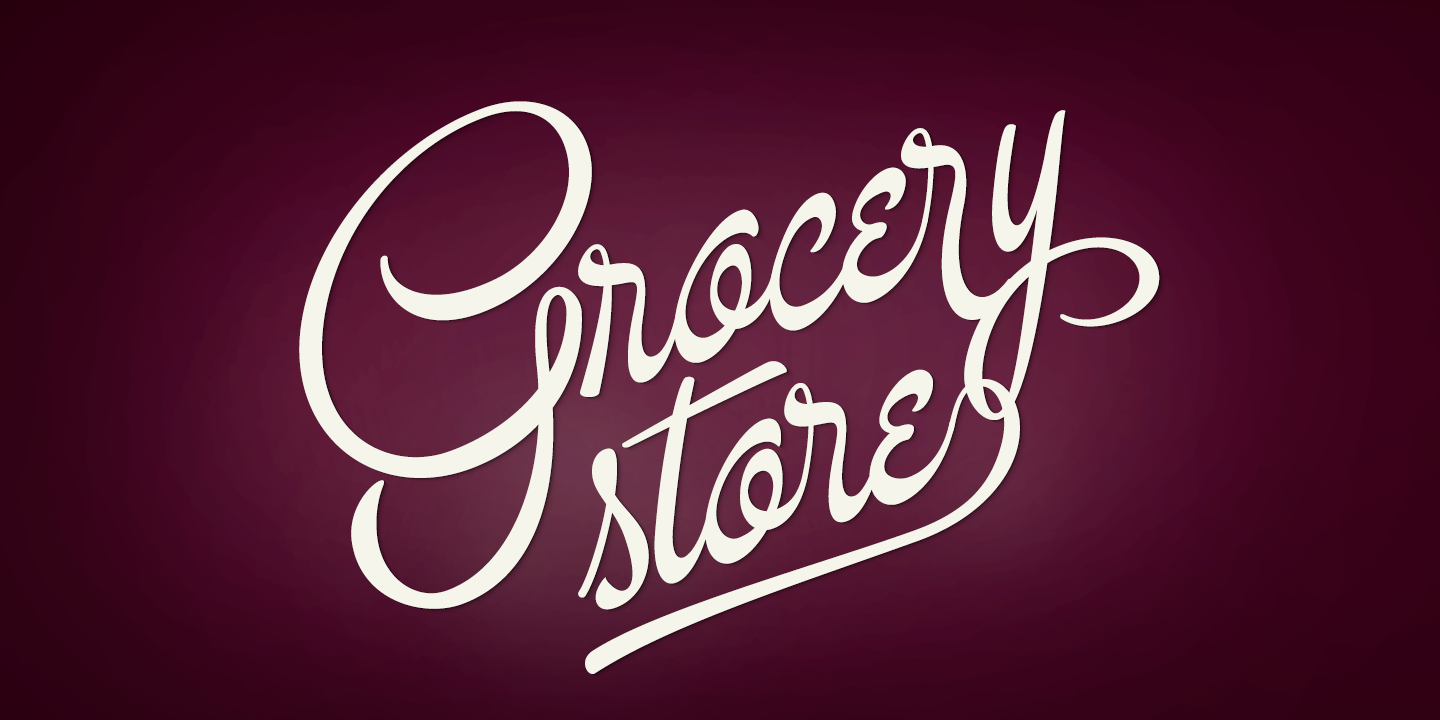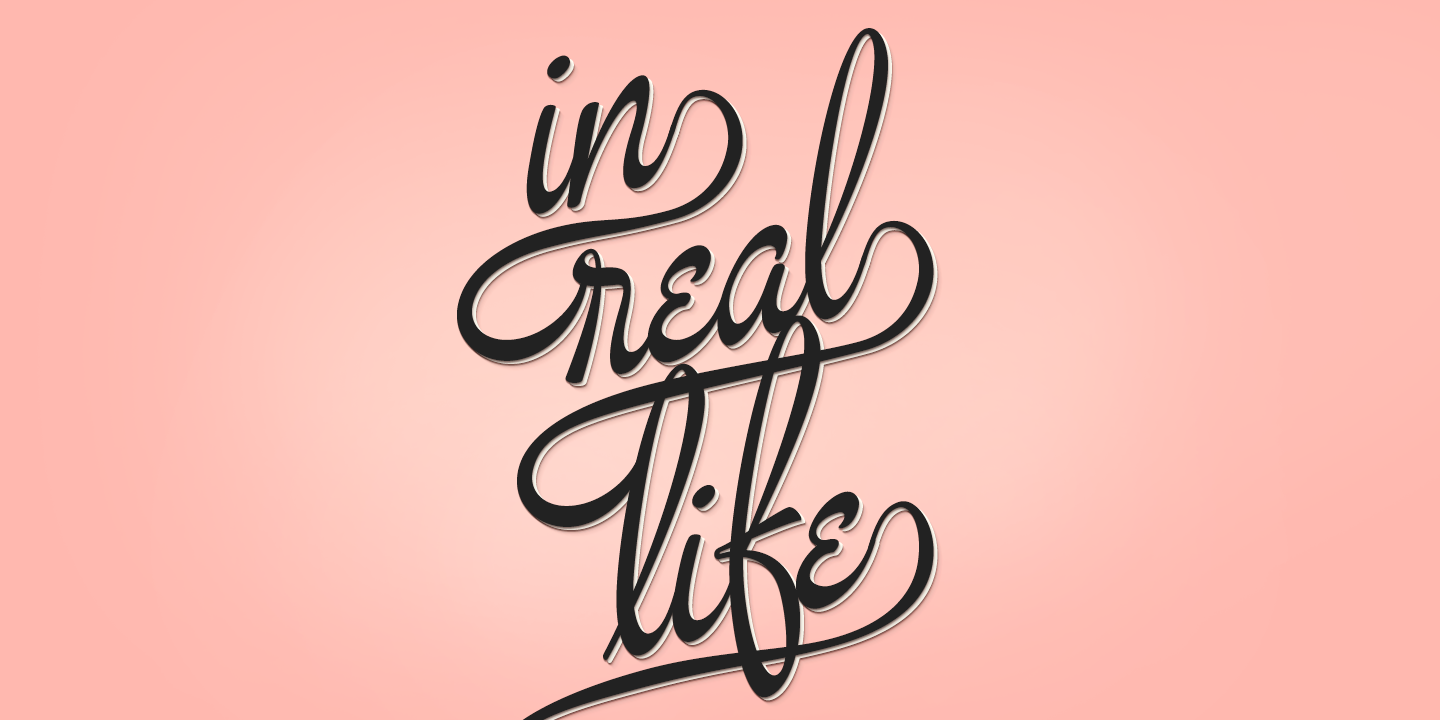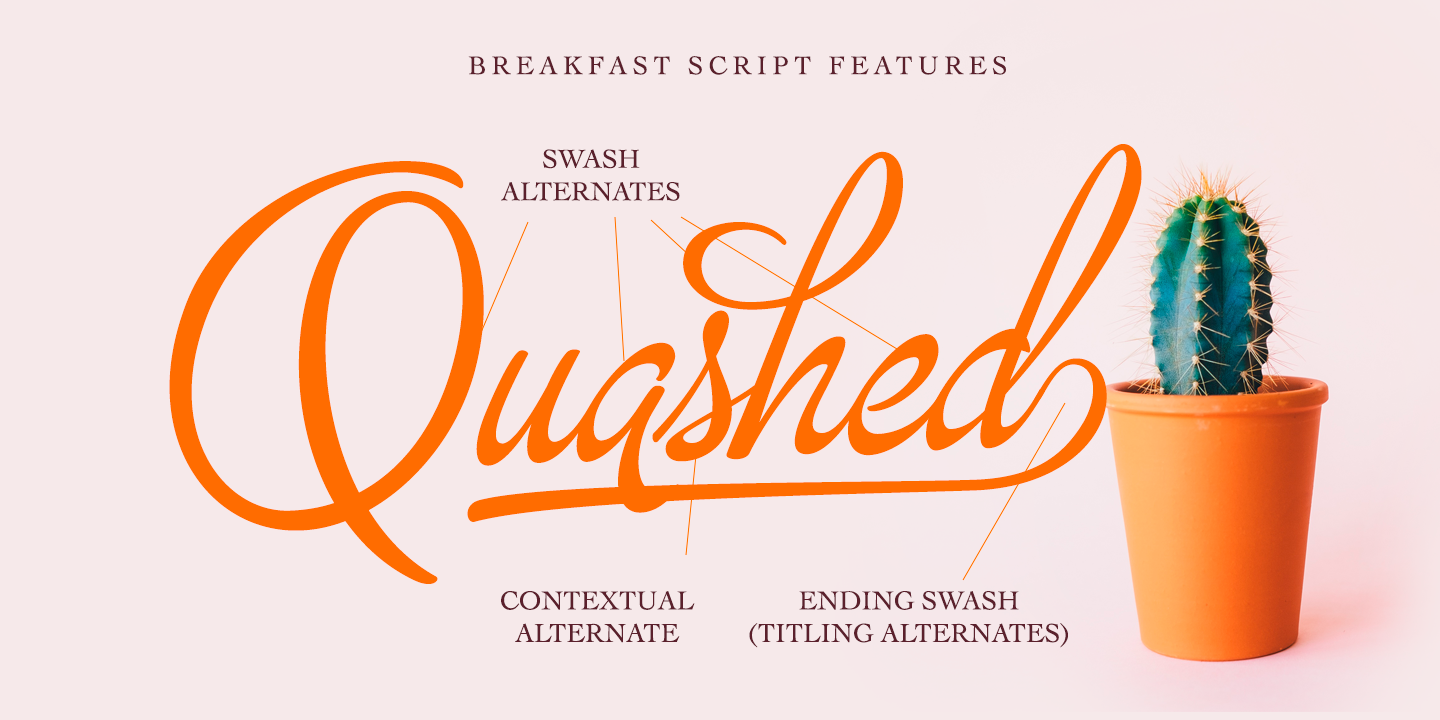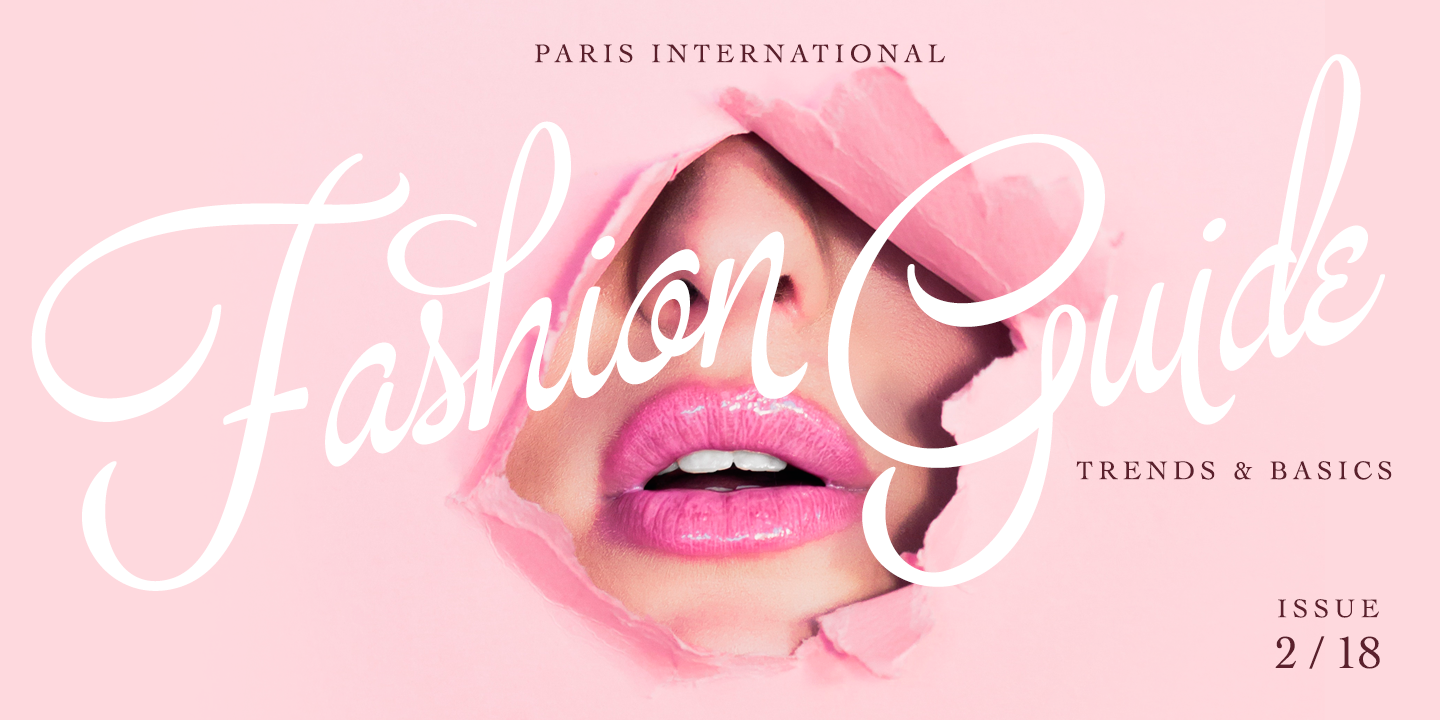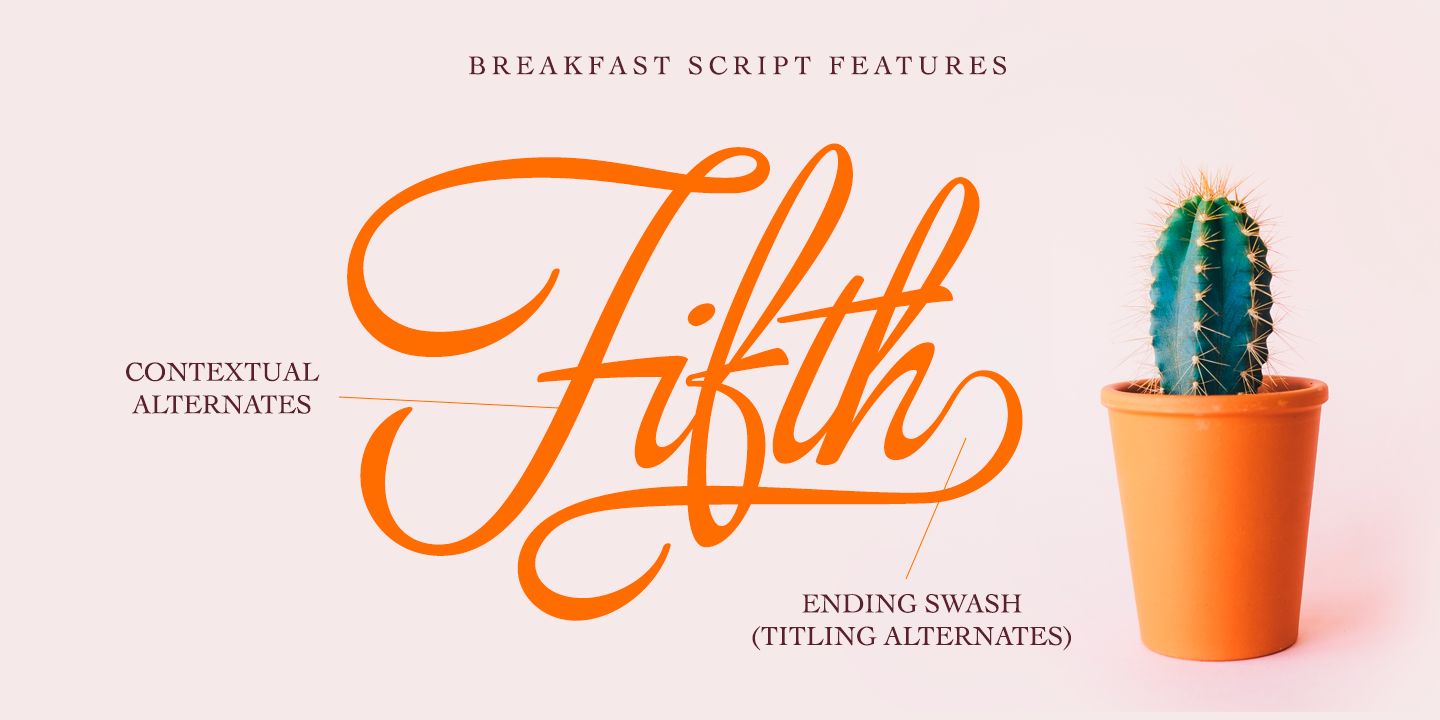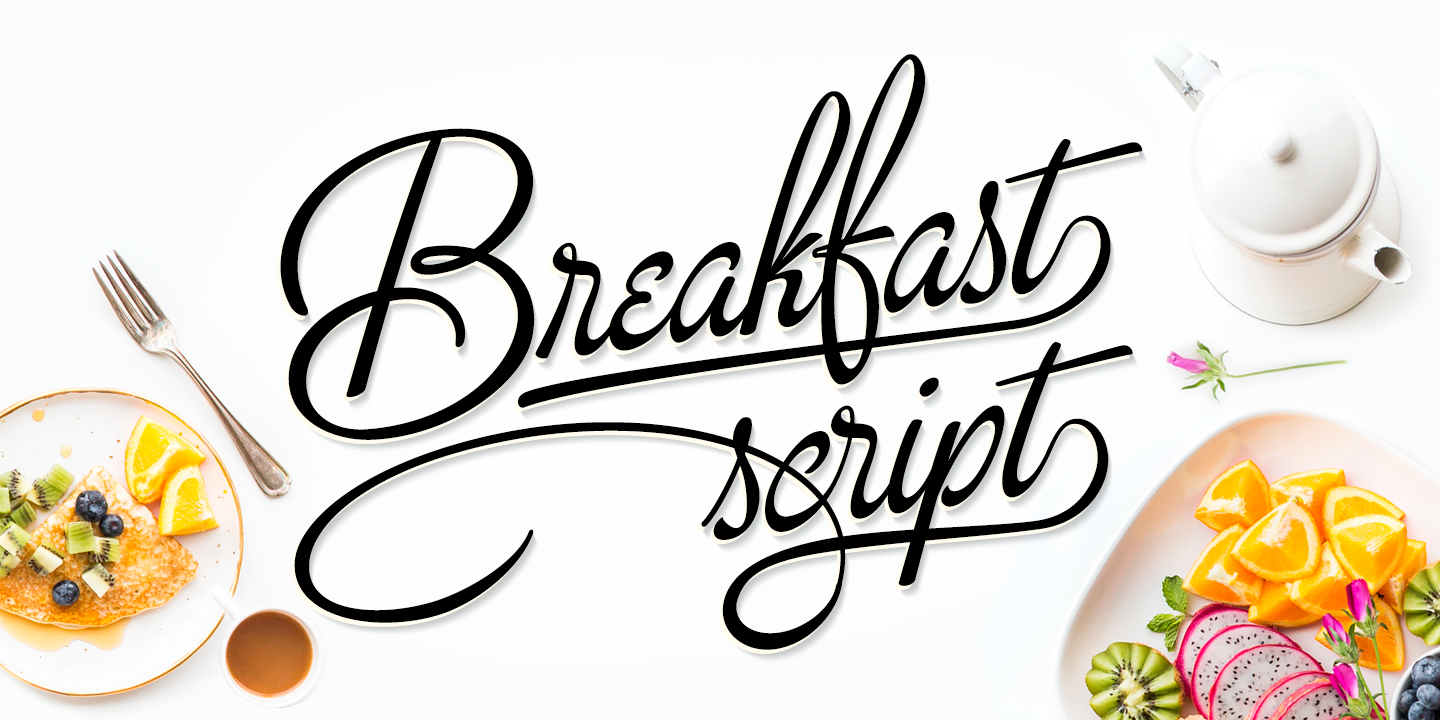
Breakfast Script Family (3 fonts)
Breakfast Script is a great display type that works as a logotype or fancy headline type.
OpenType features: Contextual Alternates, Swash